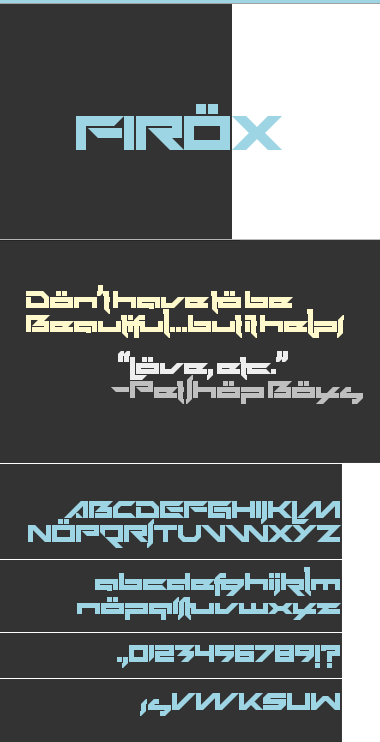
• It started when kolarek posted the RÖFIX logo as his inspiration for his Blokinjo FontStruction. I wondered if that logo could be recreated exactly in FS. Turns out, it could. Having done that exercise, it was time to move on to play with other character designs. In a short while the whole set was done that matched the logo characters. Then the playing really began. Over the last 11 days, enough variations for each character were generated to fill three fonts. This is just one of those three.
$=Alt. s
%=Alt. alt. s
<=Alt. V
>=Alt. W
[=Alt. U
]=Alt. alt. W
\=K
|=Alt. S
Nice...reminds me of The Transformers.
Superb! I love this "Q"!
Me it seems to, it look like modern Arabic typographics...
this is some funky stuff :)
Very Nice!
Take a look at some of the letters (S in particular in both Uppercase and Lowercase). The Q, M & W (Uppercase) are great, as is the K (Lowercase).
@philtaitgd: The letters were very carefully designed to be this particular way. Alt. s, S and others are provided.
Your 'o' has two dots